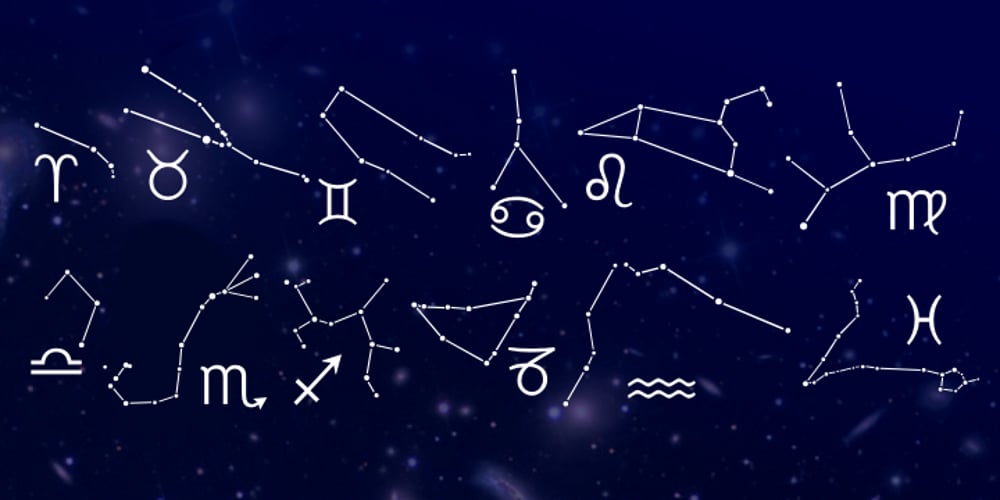
Astrosym
Astrosym font
Astrosym Font Family was designed by Natalia Vasilyeva and published by ParaType. Astrosym contains 1 styles and family package options. Non-alphabetical font Astrosym is a collection of astronomical, astrological and other cosmogonic signs and pictograms. It contains useful symbols of planets, zodiac signs, lunar phases and even the pictures of aliens. The font can be used in scientific papers, schoolbooks, encyclopedias, calendars and women’s magazines. Designer Natalia Vasilyeva. Released by ParaType in 2010.